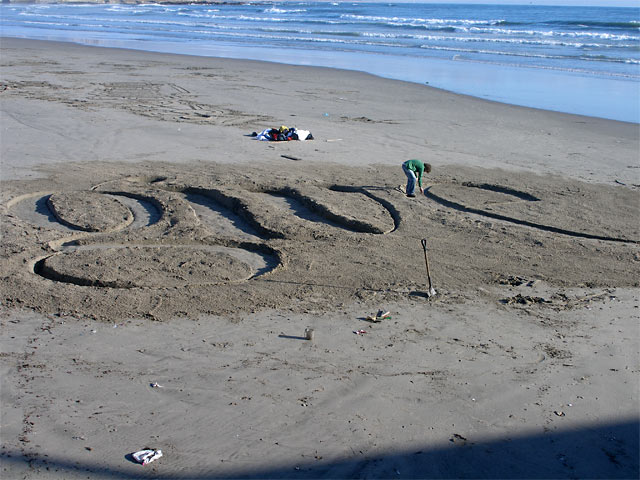
The Art of Silent Judo by the male judokas
All male judokas created one big piece of lettering together, consisting of the word 'give'. However, they implemented a second, more personal layer. In the end, inside the word 'give', every judoka drew one or more words what he wanted to give to (or get from?) women. 'Love', 'home', 'more', 'flowers', etc.
As a last, little extra bonus, the man made sure the end of their 'e' would slide exactly in a 'g' of one word of the installation of the women. He, he!